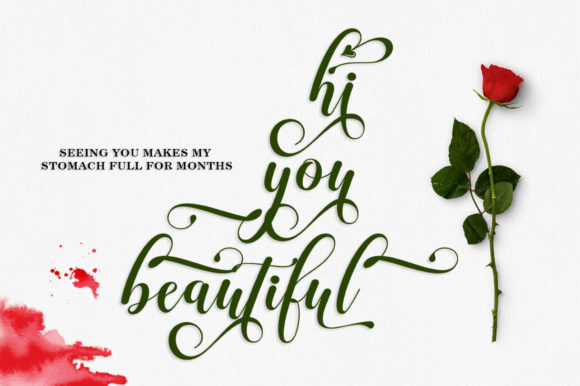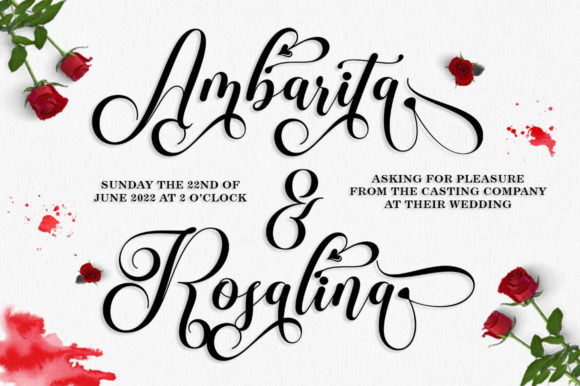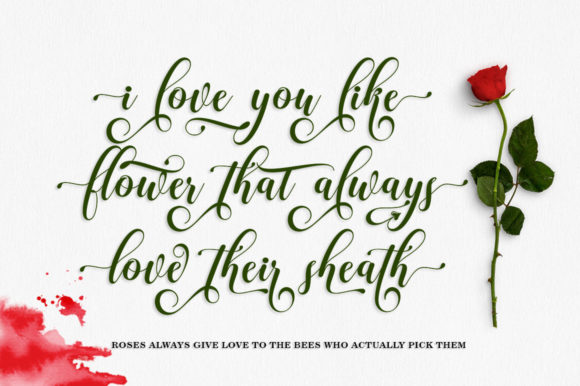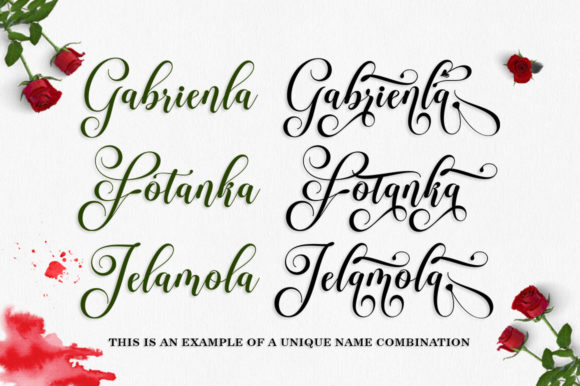
Introducing Beauty Cosneta Font: Elevate Your Designs with Elegance and Romance
Are you a designer, crafty DIY enthusiast, or someone who loves to add a personal touch to their correspondence? Look no further than the stunning Beauty Cosneta Font. This dazzling and detailed script font is designed to bring a touch of elegance and romance to your projects, making it perfect for love letters, wedding invitations, and a variety of design ideas.
The Beauty of Beauty Cosneta
Beauty Cosneta is more than just a font – it’s an experience. Its romantic and lovely-looking script is sure to captivate your audience and leave a lasting impression. Whether you’re designing a wedding invitation, a Valentine’s Day card, or simply a heartfelt letter, this font will add a level of sophistication and charm that’s hard to find elsewhere.
One of the standout features of Beauty Cosneta is its PUA (Private Use Area) encoding. This means that you can easily access all of the glyphs and swashes, giving you complete creative control over your designs. With PUA encoding, you can unlock a world of typographic possibilities, from elegant flourishes to intricate details.
The versatility of Beauty Cosneta is one of its most appealing aspects. This font can be used in a wide range of design projects, including:
- Love letters and Valentine’s Day cards
- Social media graphics and quotes
- DIY crafts and scrapbooking
Whether you’re a professional designer or a crafty hobbyist, Beauty Cosneta is sure to inspire your creativity and help you create stunning designs that capture the essence of romance and elegance.
Why Choose Beauty Cosneta?
So, what sets Beauty Cosneta apart from other script fonts on the market? Here are just a few reasons why designers and crafters are falling in love with this beautiful font:
- Elegant and romantic design: Beauty Cosneta is designed to evoke feelings of love and sophistication, making it perfect for projects that require a touch of elegance.
- PUA encoded for easy access: With PUA encoding, you can easily access all of the glyphs and swashes, giving you complete creative control over your designs.
- Versatile and adaptable: Beauty Cosneta can be used in a wide range of design projects, from wedding invitations to social media graphics.
- High-quality and detailed: This font is designed to be highly legible and detailed, making it perfect for both print and digital projects.
In conclusion, Beauty Cosneta Font is a must-have for designers, crafters, and anyone who loves to add a personal touch to their correspondence. With its elegant and romantic design, PUA encoding, and versatility, this font is sure to elevate your designs and inspire your creativity. So why wait? Download Beauty Cosneta today and start creating stunning designs that capture the essence of love and elegance.